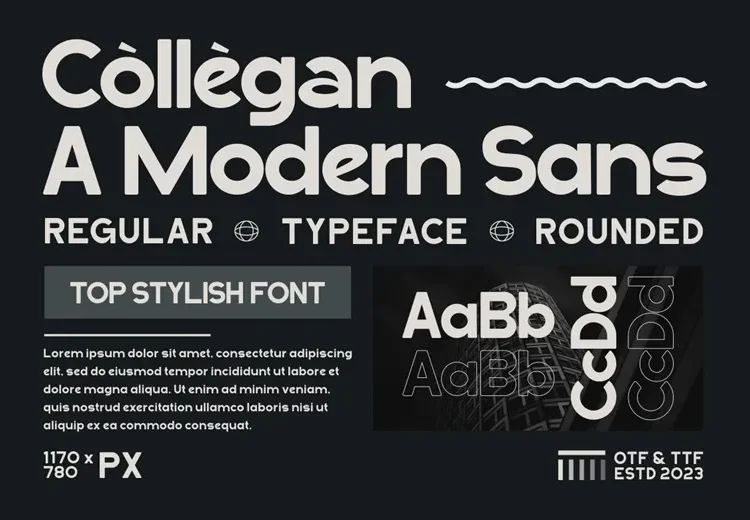
Collegan Font
Collegan is a clean and stylish sans serif font that brings an urban, modern touch to any project. Its minimalist design exudes sophistication, making it ideal for enhancing the aesthetics of websites, publications, and more. Whether you’re designing a high-quality logo, crafting stylish headlines, or creating modern graphics, Collegan meets your needs with its simplicity and readability.
This font seamlessly combines modernity with elegance, ensuring a refined and effortless look in your designs. Collegan is perfect for updating your style while maintaining a professional and polished appearance.